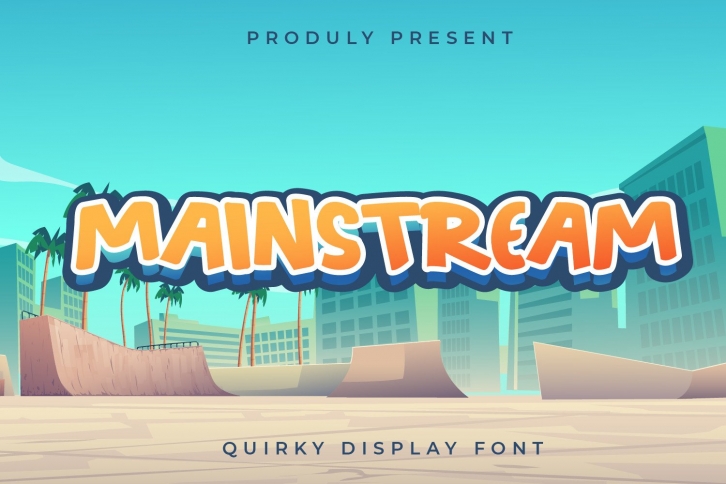
Mainstream is a quirky and cartoon-like display font. It embodies playfulness and authenticity and is the perfect choice for any children activity or school project.